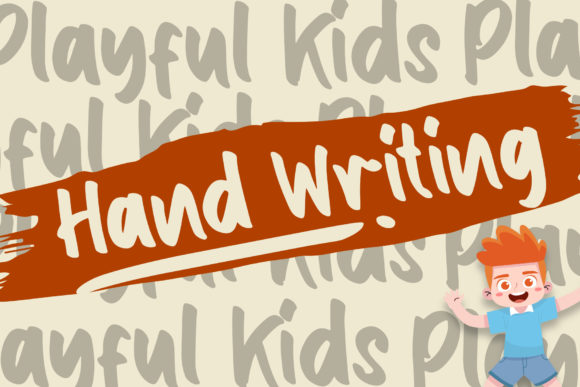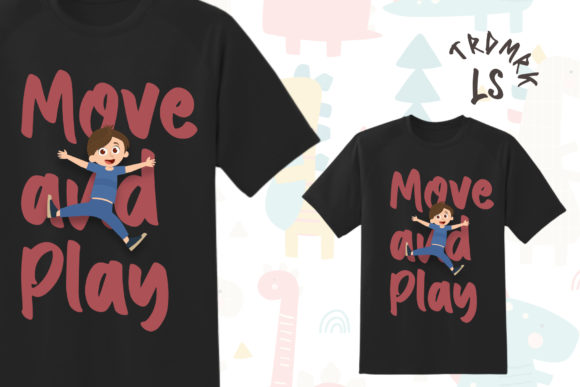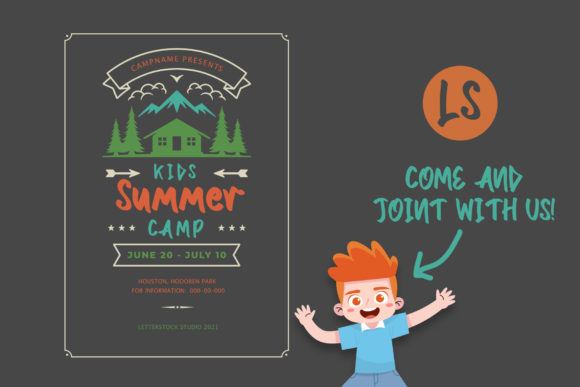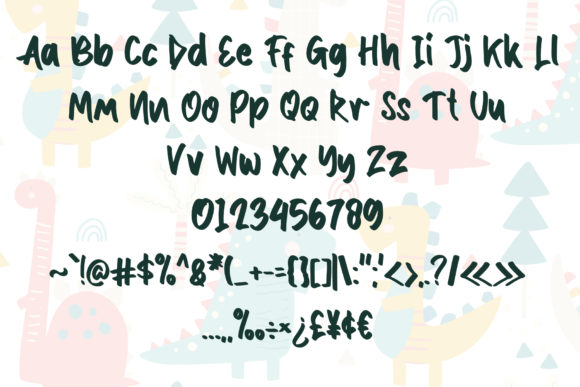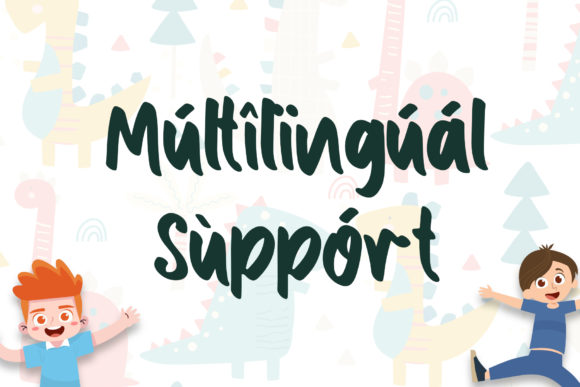
Introduction to Palermosh Font
Have you ever been in the midst of a creative project, pouring your heart and soul into it, only to realize that the perfect font is missing? That’s exactly what happened to many designers until they stumbled upon the Palermosh Font. This playful and flexible display font is a game-changer for any design project, and in this article, we’ll dive into its features and benefits.
With its transparent background and high-quality design, the Palermosh Font is a valuable resource for designers who want to elevate their creative projects. Whether you’re working on a free download or a paid design, this font has the potential to take your ideas to the next level.
Key Features of Palermosh Font
- High-quality design: The Palermosh Font is designed to provide a clean and modern look for any creative project.
- Transparent background: The font’s transparent background allows for easy customization and integration with any design.
- High-resolution design: The font is designed at a high resolution of 300 DPI, making it suitable for print and digital applications.
- Unique design elements: The Palermosh Font features a unique blend of modern and vintage elements, making it an excellent choice for designers looking for something distinctive.
- Perfect for design projects: The Palermosh Font is ideal for use in creative projects such as branding, packaging, and advertising, as well as in web design and digital media.
Honest Review: Palermosh Font
I recently had the chance to work with the Palermosh Font and I must say, it’s been a great addition to my design resources. The high quality of this font is immediately noticeable, making it perfect for any creative project that requires a professional touch.
- ✨ The Palermosh Font is incredibly versatile, suitable for a wide range of design applications, from headings to body text.
- ✨ The transparent background makes it easy to combine with other design elements and maintain a clean aesthetic.
- ⚠️ The Palermosh Font may not be the best choice for very small text sizes, as it can become slightly blurry.
- ⚠️ The font’s design may not be suitable for projects that require a more modern or minimalist aesthetic.
Overall, I’m thoroughly impressed with the Palermosh Font and would highly recommend it to designers looking for a reliable and high-quality design resource.
Customizing the Palermosh Font
The Palermosh Font is a high-quality font with a transparent background, making it perfect for creative projects that require a clean and modern look. You can customize the font by adjusting its size, color, and style to fit your design needs.
Common Use Cases for the Palermosh Font
The Palermosh Font is commonly used in graphic design, digital art, and typography projects. It’s perfect for creating logos, business cards, and other marketing materials that require a professional and modern look.